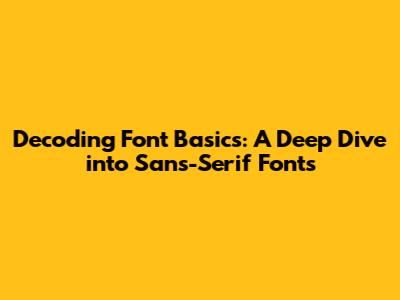
Understanding The Essence Of Font Basics: Sans-Serif Fonts
Hey guys! Ever wondered about the subtle art of typography and how it shapes your reading experience? Well, buckle up, because we're diving headfirst into the world of font basics, specifically focusing on the ever-popular sans-serif fonts. These fonts are everywhere, from your favorite websites to the books you read, so understanding them is like having a superpower. We'll explore what makes them tick, their history, and when to use them to make your text pop. So, let's get started on this exciting journey of fonts!
What Exactly are Sans-Serif Fonts?
Alright, let's start with the basics. The term "sans-serif" literally means "without serifs" in French. But what the heck is a serif, you ask? Serifs are those little strokes or decorative extensions at the end of some letter's strokes. Think of them like the tiny feet or embellishments at the end of a letter's lines. Sans-serif fonts, on the other hand, lack these embellishments, giving them a clean, modern, and often minimalist appearance. Think of the font Helvetica or Arial – those are classic examples of sans-serif fonts. They're characterized by their straightforward design, clean lines, and generally consistent stroke weight. This simplicity makes them incredibly versatile and suitable for a wide range of applications, from digital displays to print materials. These fonts are designed to be easily readable, and their clean lines are aesthetically pleasing to the eye. They are also incredibly popular for headlines, body text, and any situation where clarity and readability are paramount. Whether you're designing a website, creating a presentation, or just writing a simple email, understanding the characteristics of sans-serif fonts is essential.
Characteristics of Sans-Serif Fonts
Sans-serif fonts boast several key characteristics that make them unique. They generally offer a more modern and clean aesthetic, which is why they are very popular in digital interfaces. Here's what sets them apart:
- Clean Lines and Simplicity: Sans-serif fonts are designed with clean, straightforward lines, eliminating the decorative serifs found in their serif counterparts. This simplicity lends a modern and minimalist feel, making them ideal for contemporary designs.
- Uniform Stroke Weight: Many sans-serif fonts have a consistent stroke weight throughout the letters, contributing to their balanced appearance. This evenness enhances readability, particularly on digital screens.
- Readability on Screens: Due to their clean design, sans-serif fonts often render very well on screens with lower resolutions. They minimize pixelation and maintain clarity, making them a great choice for websites, apps, and digital documents.
- Versatility: From headlines to body text, sans-serif fonts are versatile and adapt well to various design contexts. They can be used in both large display sizes and small text sizes without losing their impact.
- Modern and Neutral Appeal: Generally, they exude a modern and neutral aesthetic, making them suitable for many projects. They often feel more modern than serif fonts, making them great for any digital content.
These characteristics make sans-serif fonts a powerful tool in any designer's arsenal, making text easy to read and aesthetically pleasing. You will definitely know the importance of sans-serif fonts and their features if you spend time with them.
A Quick Look at the History of Sans-Serif Fonts
Now that you know what sans-serif fonts are, let's take a quick trip back in time to explore their history. The origins of sans-serif fonts are quite fascinating. They emerged in the early 19th century, with the earliest examples appearing in the late 18th century. These fonts were initially met with some resistance from traditional typographers, who preferred the more ornate serif fonts. However, as the Industrial Revolution progressed and new technologies emerged, the need for simpler, more legible fonts became apparent. Sans-serif fonts fit the bill perfectly. They were easy to reproduce and, importantly, easy to read, especially in the context of the new printing technologies. These fonts gradually gained popularity, particularly for display purposes like advertisements and headlines. This trend continued into the 20th century, with the rise of modernist design, which celebrated clean lines and simplicity. Iconic fonts like Helvetica and Arial were developed during this period, solidifying the importance of sans-serif fonts in design. Today, these fonts are a staple in the world of typography. They play an important role, influencing everything from the way we read websites to the way we interact with our digital devices. They will continue to be important as they evolve and adapt to modern design. The history of sans-serif fonts is a testament to the fact that form often follows function.
Key Milestones in Sans-Serif Font Evolution
Let's go through some of the important moments of their evolution:
- Early 19th Century: The first sans-serif fonts begin to appear. They are initially met with skepticism but gain traction due to industrialization and the need for more readable fonts.
- Late 19th Century: Sans-serif fonts are used in advertising and display typography due to their visual impact and readability.
- Early 20th Century: The emergence of the Bauhaus movement and modernism, which embrace clean lines and simplicity, further boosts the popularity of these fonts.
- Mid-20th Century: The design of iconic sans-serif fonts like Helvetica and Univers solidifies the dominance of these fonts in the world of design.
- Late 20th Century to Present: Sans-serif fonts become the standard for digital interfaces, websites, and contemporary design. They are continually refined and adapted to meet modern needs.
From their humble beginnings to their current widespread use, the evolution of sans-serif fonts reflects changes in technology, design philosophy, and the ever-changing needs of communication. They are now considered a symbol of modernity, readability, and are the core of modern design.
The Best Uses for Sans-Serif Fonts
Okay, so we know what they are and a little bit about their history, but where do you actually use them? Knowing when to use sans-serif fonts effectively can significantly improve the look and readability of your designs. Because of their clean and modern appearance, sans-serif fonts are generally well-suited for a variety of purposes. Let's delve into some ideal applications.
- Digital Interfaces: Sans-serif fonts are generally the best choice for websites, apps, and other digital interfaces. Their clarity on screens makes them great for readability, especially at different screen resolutions. Fonts such as Roboto, Open Sans, and Lato are frequently used for web design because of their readability and clean lines.
- Headlines and Display Text: Their bold and clear appearance is perfect for grabbing attention in headlines, titles, and other display text. They provide excellent visual impact. Fonts such as Impact or Bebas Neue can make a strong visual statement.
- Modern and Minimalist Designs: They work well with modern, minimalist, and clean designs. Their simple style complements these design aesthetics beautifully. Helvetica and Arial are often used to achieve this look.
- Corporate Branding: Many companies choose sans-serif fonts for their logos, marketing materials, and other branding efforts because of their professional and modern appeal. These fonts can help a company to look more modern, and this appeals to a broader audience.
- Body Text (with Considerations): While they are often associated with headings, many sans-serif fonts are also readable in body text. However, it's crucial to select a font that is designed for extended reading. Fonts such as Open Sans or Lato are specifically designed for good readability in body text. Keep in mind the font size and line spacing, which greatly impact legibility.
Choosing the right font for your needs will help improve your message. Remember, the best font depends on your project. If you are unsure which font to use, it's always a good idea to experiment with different fonts. You should also consider the overall design and what kind of message you want to convey. By understanding these applications, you can effectively use sans-serif fonts. You can also significantly improve the look, readability, and overall effectiveness of your design projects.
Choosing the Right Sans-Serif Font
Here are some helpful tips to choose the right sans-serif font for your projects. You want the right font, and with all of the fonts available, choosing the correct one can sometimes feel overwhelming. Fear not! Here's a quick guide to help you find the perfect sans-serif font for your specific needs.
Factors to Consider When Selecting a Sans-Serif Font
- Readability: The most important factor is readability, especially for body text. Look for fonts that are easy to read at the size you will use. Pay attention to the letterforms, spacing, and stroke weight. Also, test the font on different backgrounds to ensure it remains legible.
- Purpose of the Text: Consider where the font will be used. For headlines, a bolder, more eye-catching font might be suitable. For body text, you'll need a font that is easy to read for extended periods. The font should fit the overall design and communicate the message.
- Target Audience: Think about your audience. A font that works well for a technical audience might not be the best choice for a younger audience. Choose a font that resonates with your target demographic and aligns with your brand's personality.
- Design Style: Consider the overall style of your design. Modern, minimalist designs often pair well with clean, geometric sans-serif fonts like Helvetica or Roboto. For a more playful look, you might choose a font with a unique character, like Poppins or Montserrat.
- Font Weight and Style Options: Ensure the font family offers a wide range of weights (light, regular, bold, etc.) and styles (italics, condensed) to meet all your needs. This allows for flexibility in your design and helps to create visual hierarchy.
- Licensing: Before using a font, make sure you understand the licensing terms. Some fonts are free for commercial use, while others require a license. Be sure you are compliant with the license before using it for any commercial projects.
By carefully considering these factors, you can choose a font that enhances your design, communicates your message clearly, and creates a positive experience for your audience. Take some time to try out different fonts, and do not be afraid to experiment to find the perfect match for your needs.
Pairing Sans-Serif Fonts with Other Fonts
One of the questions that designers always ask is how to pair fonts. You can create balanced and visually interesting designs by pairing sans-serif fonts with other fonts. Pairing fonts is an art form. It's about finding fonts that complement each other and work well together. Here's how to master the art of font pairing.
Tips for Successful Font Pairing
- Contrast: Look for fonts with some contrast. This could be in style, weight, or the size of the font. Avoid pairing fonts that are too similar, as this can create visual confusion. Try pairing a bold sans-serif headline with a lighter serif font for body text.
- Choose Fonts from Different Categories: Mix and match fonts from different categories, such as sans-serif and serif fonts, or sans-serif and script fonts. These combinations can create a visually engaging design. Serif fonts tend to work well for body text, while sans-serif fonts are very good for headlines.
- Consider the Mood: Make sure the fonts evoke a similar mood and fit together well with the theme of your project. If you are going for a professional design, you can use a clean sans-serif font. If you want something that is playful, a script font can work great.
- Balance: Always aim for balance. Make sure the fonts work together harmoniously, instead of competing for attention. Use one font as the primary font and the other as a secondary, so that one does not overwhelm the other.
- Test and Iterate: Always test your font pairings with sample text to ensure they work well together. Try different sizes, weights, and styles. Sometimes testing in a real-world scenario can also help.
- Use a Font Pairing Tool: Many online tools and resources suggest font pairings. These can be helpful for finding inspiration, though you should always assess the suggestions to make sure they are suitable for your project.
By following these tips, you'll be able to create stunning designs with your sans-serif font. Experimenting with different pairings is a great way to discover new looks and also help you in your design journey.
Conclusion: Mastering the Art of Sans-Serif Fonts
Well guys, we've explored the core of sans-serif fonts. From their historical roots to their design choices, and how to use them effectively. Remember that these fonts provide clean, modern appeal and can boost the legibility of any project. Understanding and using them opens up a world of possibilities for your creative projects. Embrace their simplicity, experiment with different pairings, and watch your designs come to life. Keep practicing and exploring. With each design, you will gain new insights and understanding.
Key Takeaways
- Definition: They are fonts without serifs, those little strokes at the end of letterforms.
- Characteristics: They are characterized by clean lines, consistency, and a modern aesthetic.
- Uses: They are best for digital interfaces, headlines, modern designs, and corporate branding.
- Choosing: You must consider readability, purpose, and the target audience.
- Pairing: Use contrast and balance to create harmonious font combinations.
So go forth, experiment, and have fun with these fonts. You have now learned the basics. Feel free to use them to elevate your designs and enjoy the art of typography.